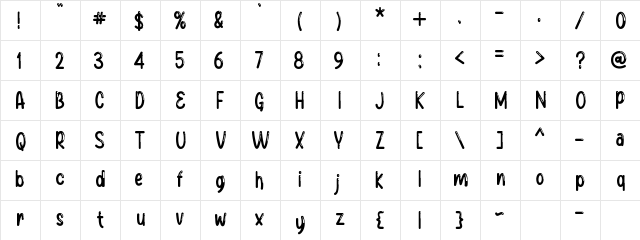
Baby Balloon Group Regular
| Designer | Lettersiro 2018 |
Design Context for Baby Balloon Group Typeface
Baby Balloon Group is a composed and adaptable typeface that performs quietly and consistently across a wide range of design contexts.
Pro Tip: Use Baby Balloon Group in both headline and body roles to test its range before committing to a single application.